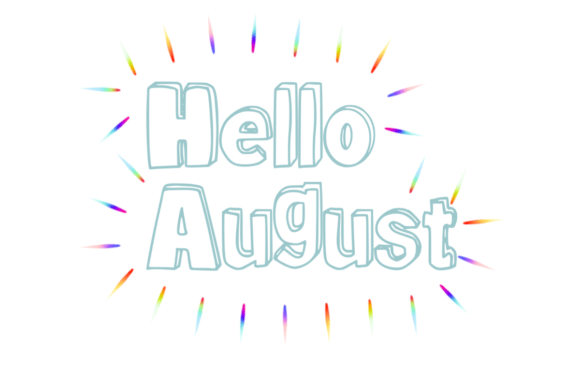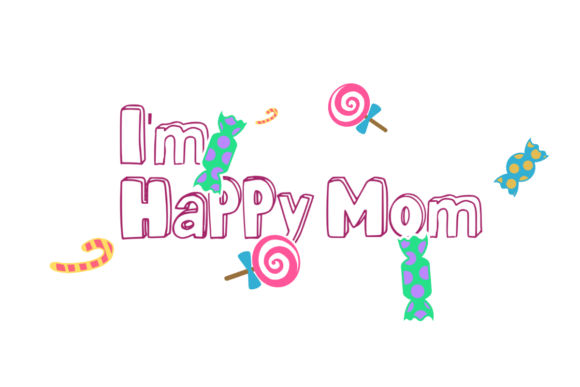
Introduction to Ristea Fat Font
Ristea Fat is a whimsical, chunky and fun display font.
Ristea Fat Font PNG with transparent background - Preview 1
Ristea Fat Font PNG with transparent background - Preview 2
Whether you are using it for cartoon-related designs, children games, quotes, titles, brand names, book covers, posters, or just any creation that requires a touch of joy, this font is a great choice .
Key Features of Ristea Fat Font
Why Choose Ristea Fat Font?
Ristea Fat Font offers exceptional quality and versatility, making it a valuable addition to your design toolkit. Whether you’re creating for personal projects or commercial use, Ristea Fat Font delivers professional results.